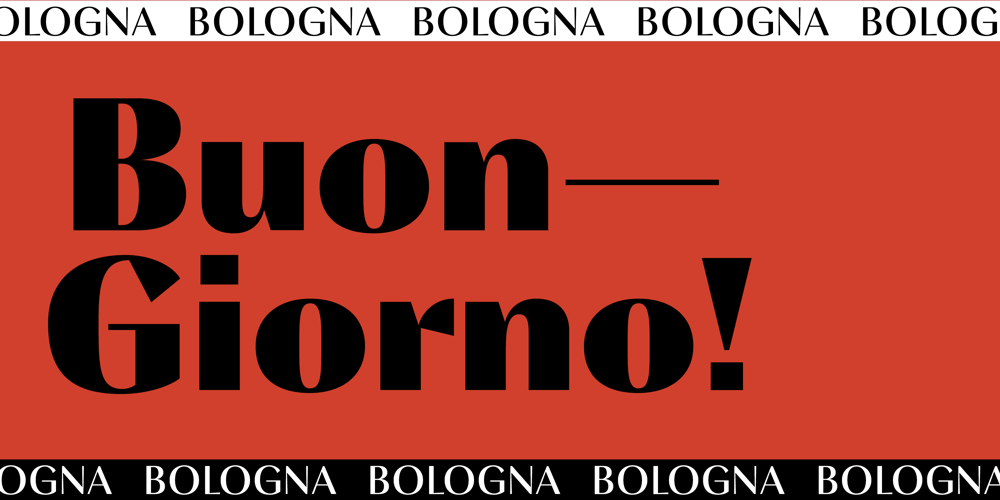
Bologna
Bologna font
Bologna Font Family was designed by David Turner and published by David Turner. Bologna contains 3 styles and family package options. Inspired by pointed pen calligraphy and modulated sans serif typefaces used for advertising in the 1920´s, Bologna is a high contrasted sans serif with a modern and fashionable look. Bologna comes in three weights: Regular, Bold and Black. The Regular and Bold weights are, despite of their high contrast, also build for body texts. Whereas Bologna Black, with a more expressive look and sharp angles, is specially designed for large and striking headlines, packaging or identities. Overview: 3 weights – Regular, Bold, Black Regular/Bold: 657 Glyphs Black: 871 Glyphs Lining, tabular and old style figures Ligatures: fl, fi, ff, ffi ffl, Unicase Letters: a, e, m, n, r Alternative Guillemets Case Sensitive Arrows Bologna Black: hairline accents and interpunctations Fractions Extended Language Support Stylistic Sets: ss01 = Alternative Guillemets / Alternative y ss02 = Unicase glyphs ss03 = Numerals in circle ss04 = Numerals in black circle ss05 = Hairline Accents and Interpunctations (Bologna Black)